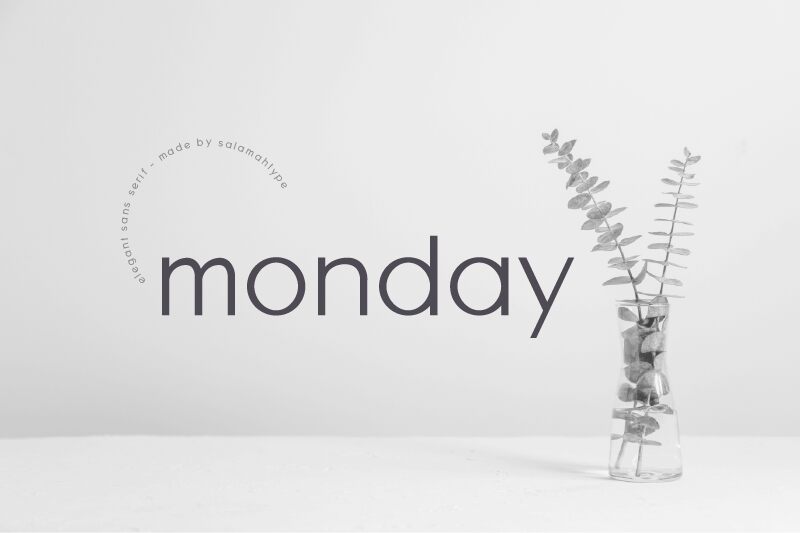
Monday Sans
Monday Sans by Salamahtype.com is a striking sans serif font that effortlessly merges modernity and simplicity. Its clean lines and balanced proportions exude a refreshing minimalism that's both elegant and approachable. With a relatively light weight, it radiates an airy finesse, making it perfect for conveying clarity without being overwhelming. The gentle curvature of its letters ensures readability while adding a subtle charm.
Ideal for contemporary branding, digital interfaces, and editorial design, Monday Sans shines in environments where a crisp, professional aesthetic is paramount. Whether used in headlines or body text, its versatility ensures it enhances any design project with sophistication and grace.